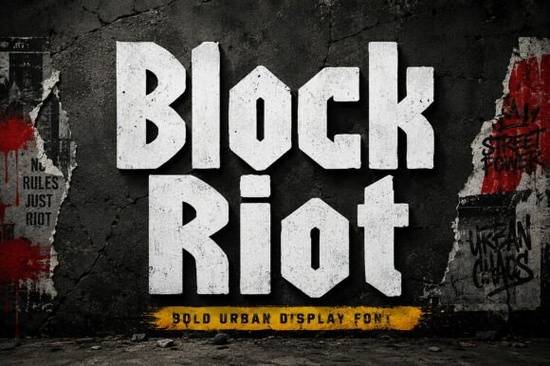
If you need a typeface that commands attention the second someone sees it, the Block Riot Font is built for exactly that. Inspired by urban street culture, industrial architecture, sports branding, and gaming aesthetics, this bold display typeface uses strong geometric letterforms and sharp edges to create a rebellious, high-impact look. It's the kind of font that works when you want your text to feel loud, confident, and unapologetically bold whether that's on a poster, a t-shirt, or a YouTube thumbnail.
What Makes Block Riot Different from Other Bold Fonts?
Plenty of fonts claim to be bold or impactful, but Block Riot goes further. Its letterforms are rooted in geometric precision, which gives every character a structured, architectural feel. The sharp edges and angular cuts add a raw, street-level energy that softer display fonts simply don't have.
This combination of structure and grit makes it versatile across different design contexts. It doesn't just look heavy it feels intentional. Every letter carries weight and purpose, which is exactly what you need when designing for audiences who respond to strength and attitude.
Who Should Use This Font?
Block Riot is a strong fit for anyone working on projects that demand visual dominance. Here are some common use cases:
- Esports and gaming teams logos, overlays, team jerseys, and stream graphics
- Streetwear brands t-shirt designs, hoodie graphics, and brand marks
- Music industry album covers, concert posters, and promotional flyers
- Print-on-demand sellers mug designs, sticker sheets, and poster prints
- Social media creators bold Instagram posts, YouTube thumbnails, and story graphics
- Small businesses packaging design, signage, and event promotions
If your project needs typography that feels powerful and modern, this font delivers without overcomplicating your workflow.
What Design Styles Pair Well with Block Riot?
Pairing a display font like Block Riot with the right supporting typeface can make or break a layout. Here are a few approaches that work well:
- Use it alongside clean sans-serif body text. The contrast between Block Riot's boldness and a simple sans-serif creates a balanced, readable hierarchy.
- Try it with rough or textured backgrounds. Concrete, grunge, and industrial textures complement the font's street-inspired aesthetic naturally.
- Mix it with lighter design elements. Thin lines, minimal icons, and muted color palettes let the font take center stage without overwhelming the overall design.
Is Block Riot Good for Print-on-Demand Products?
Absolutely. Print-on-demand sellers often struggle to find fonts that reproduce well at different sizes and across various products. Block Riot's clean geometric construction holds up whether it's printed large on a poster or scaled down on a small sticker.
Its bold weight means it reads clearly on busy backgrounds, which is a real advantage for products like mugs, t-shirts, and tote bags where design elements compete for space.
Can I Use Block Riot for Wedding or Formal Designs?
Block Riot is primarily designed for bold, high-energy projects. If you're creating something elegant or formal like wedding invitations or birthday party stationery a typeface from our wedding and birthday display fonts collection would be a better match. That said, Block Riot could work for save-the-date cards or rehearsal dinner graphics if the couple's style leans edgy and modern.
Quick Checklist Before You Start Designing
- Confirm the font fits your project's tone bold, urban, and high-energy
- Pair it with a simple body font for readable text hierarchies
- Test it at both large and small sizes for your specific product
- Use contrasting backgrounds to let the sharp letterforms stand out